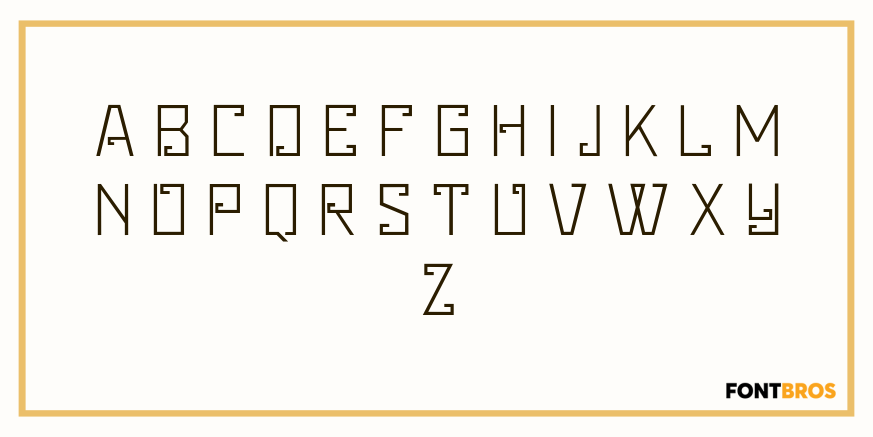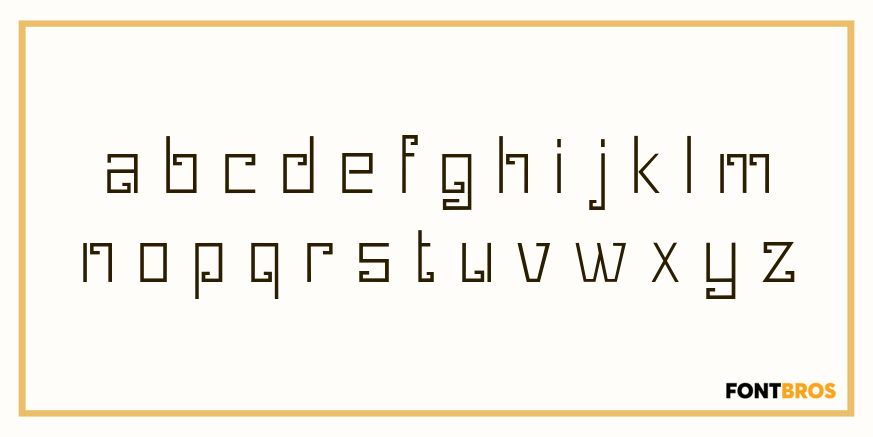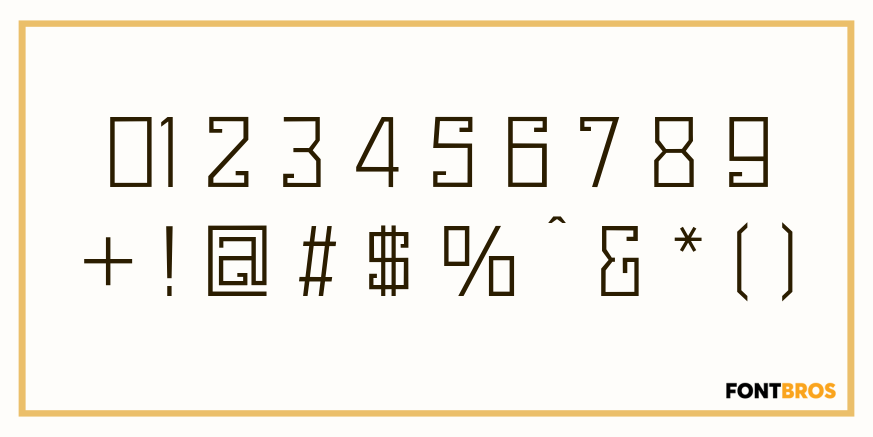
Greenleaf
Greenleaf is a striking geometric display font with a clean, architectural rhythm and a distinctly vintage-modern personality. Built from thin, squared-off letterforms with clever breaks, turns, and angular details, Greenleaf brings an artful sense of structure to headlines, logos, packaging, posters, and branding projects that need something unusual without feeling overly decorative.
Its crisp linework gives each word a precise, almost ornamental quality, while the open construction keeps the design light and readable at display sizes. Greenleaf is especially well-suited for boutique branding, editorial titles, retro-inspired layouts, event graphics, album art, signage, and any design that calls for a refined geometric edge.
Elegant, minimal, and memorable, Greenleaf is a fresh choice when you want typography that feels designed, intentional, and just a little unexpected.